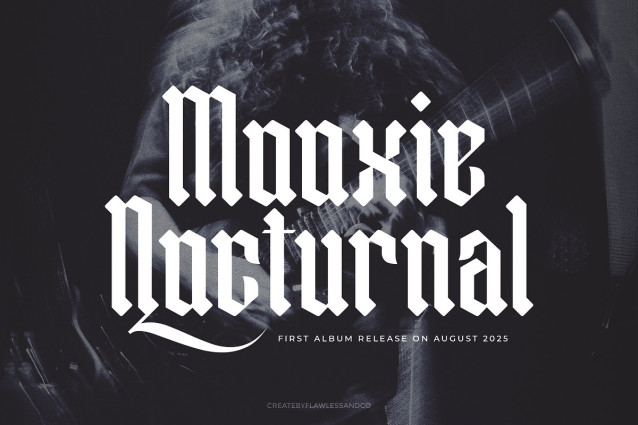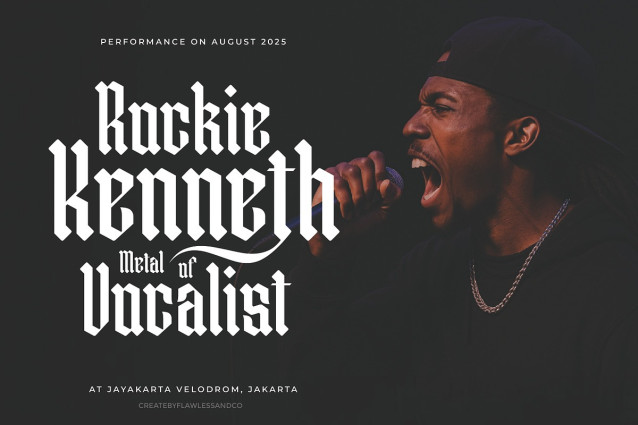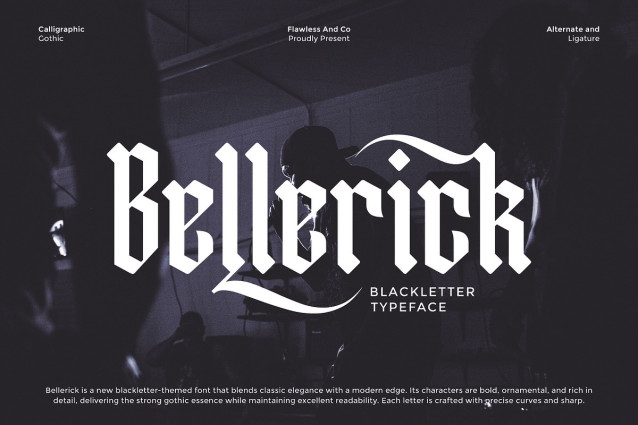
Bellerick Blackletter Font
Bellerick Blackletter Font is a striking blackletter typeface that merges traditional gothic aesthetics with a modern twist. Its bold and ornamental letterforms are crafted with sharp edges and smooth curves, giving it a distinctive and powerful presence. Perfect for projects that demand a strong gothic character while ensuring readability, Bellerick delivers elegance, strength, and artistry in every letter. Designed with alternate characters and stylish ligatures, this font offers flexibility and creativity for branding, logos, posters, and editorial designs.